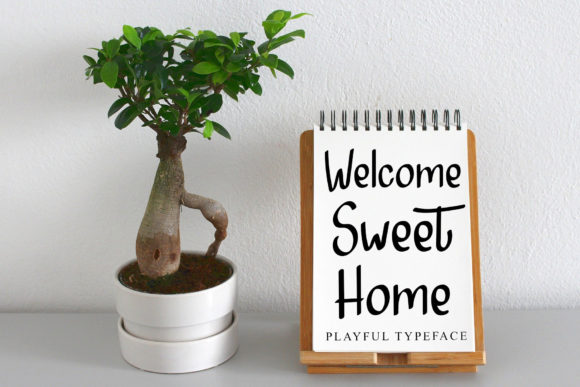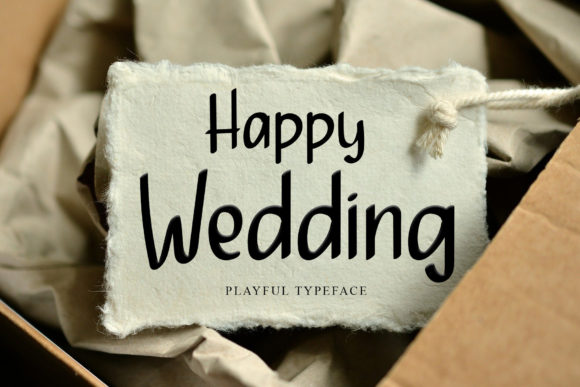
About Atlantik Font
Atlantik is a simple and casual handwritten font. Fall in love with its completely different and timeless style and use it to create spectacular designs!